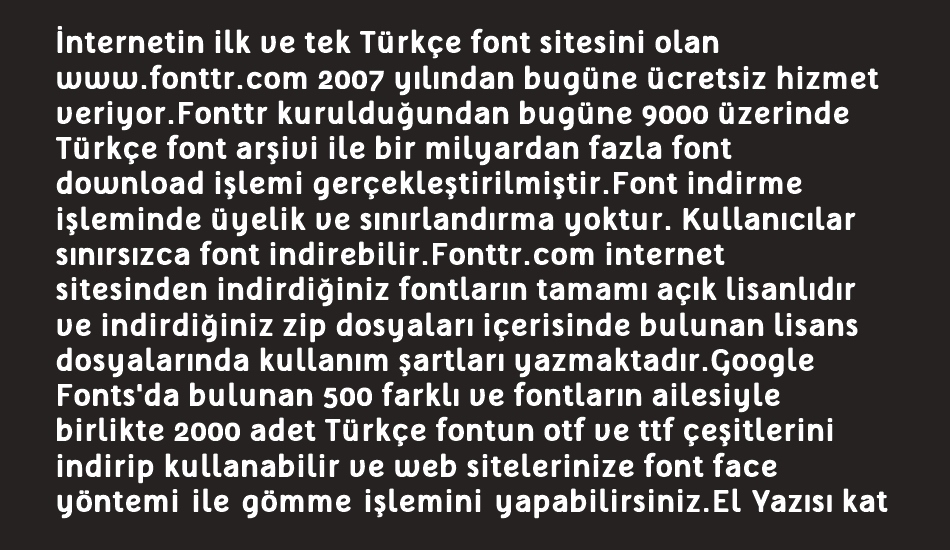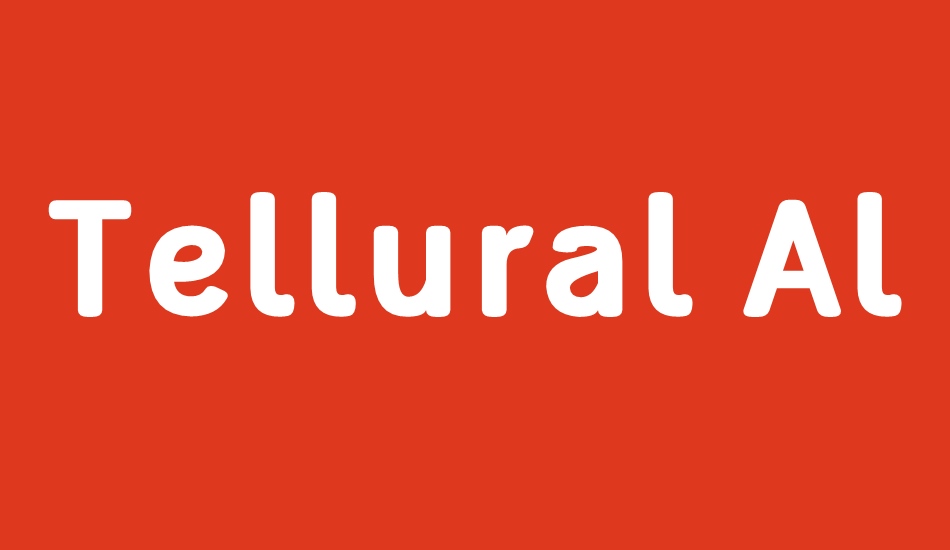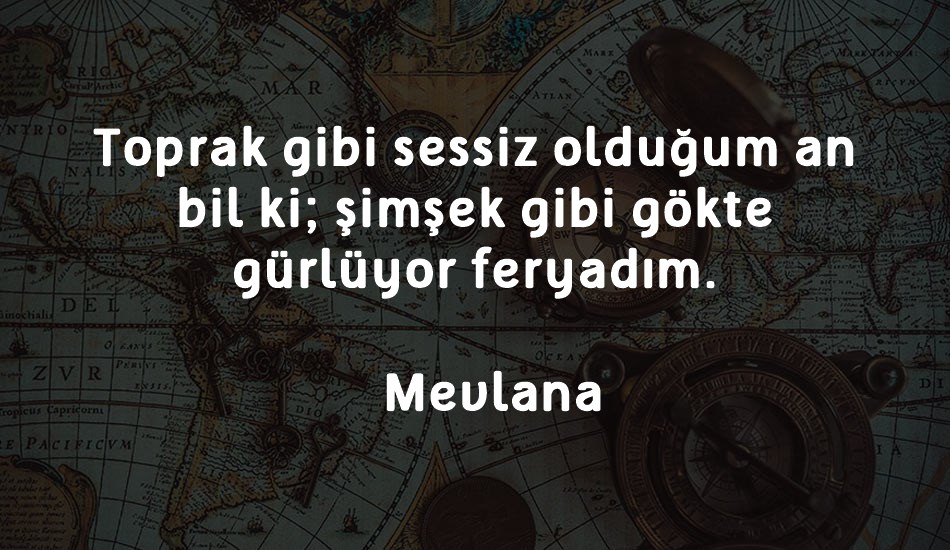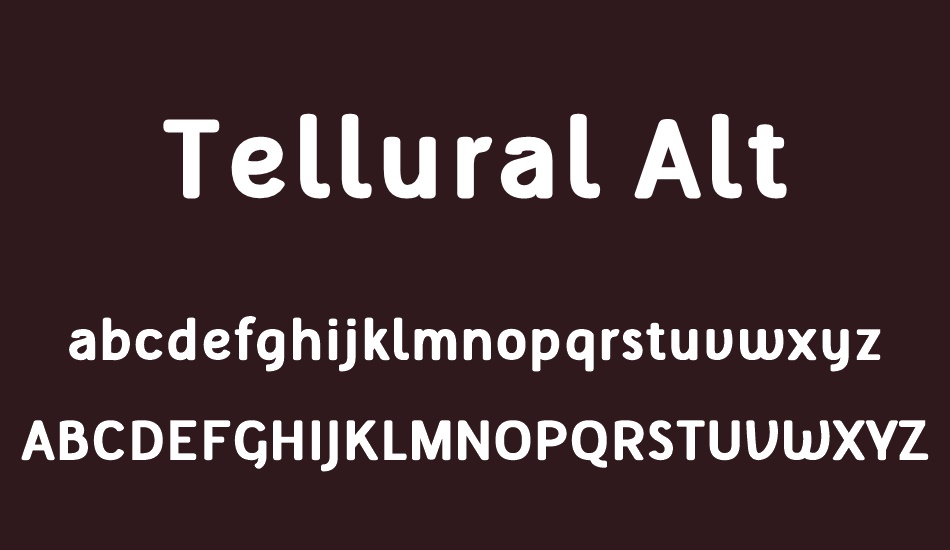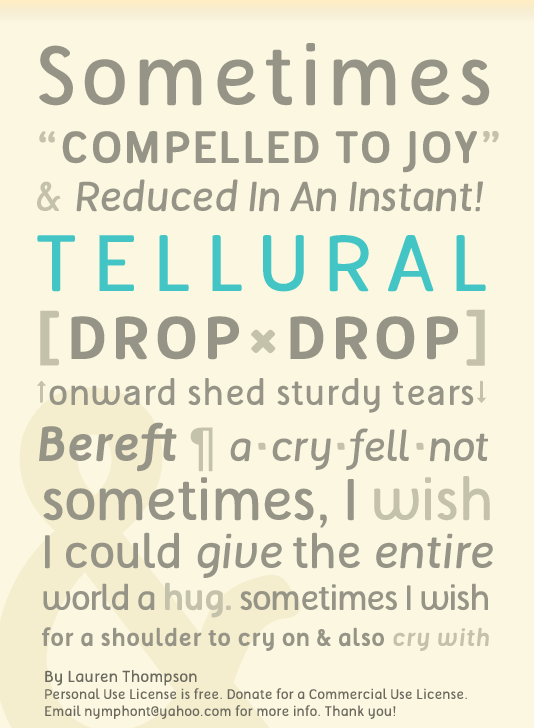
Tellural font
Tellural
Contains many additional characters including Greek and Cyrillic letters. Also comes in an "alternate" version with a different lowercase letter a that may be easier to differentiate from other characters for convenience. I hope you like it!
Tellural Alt font